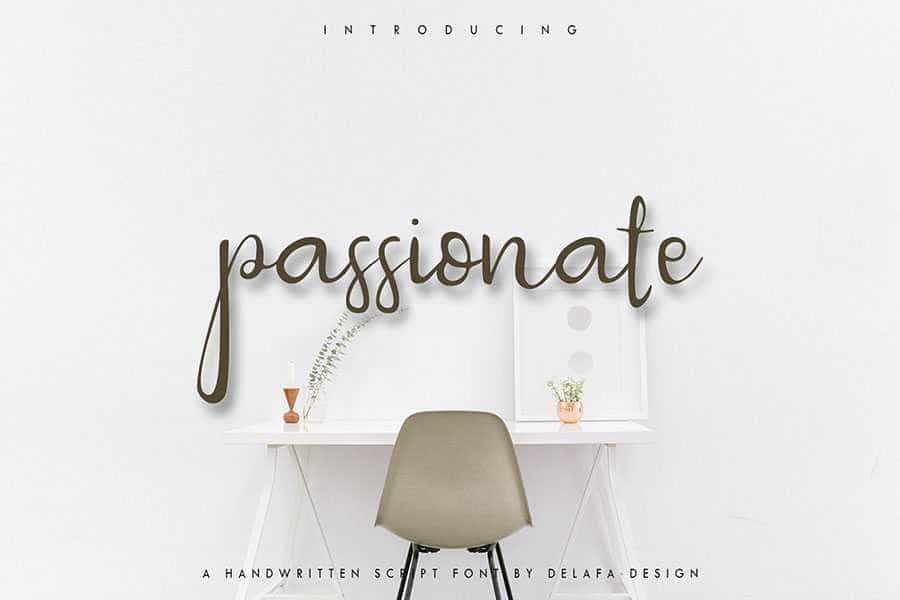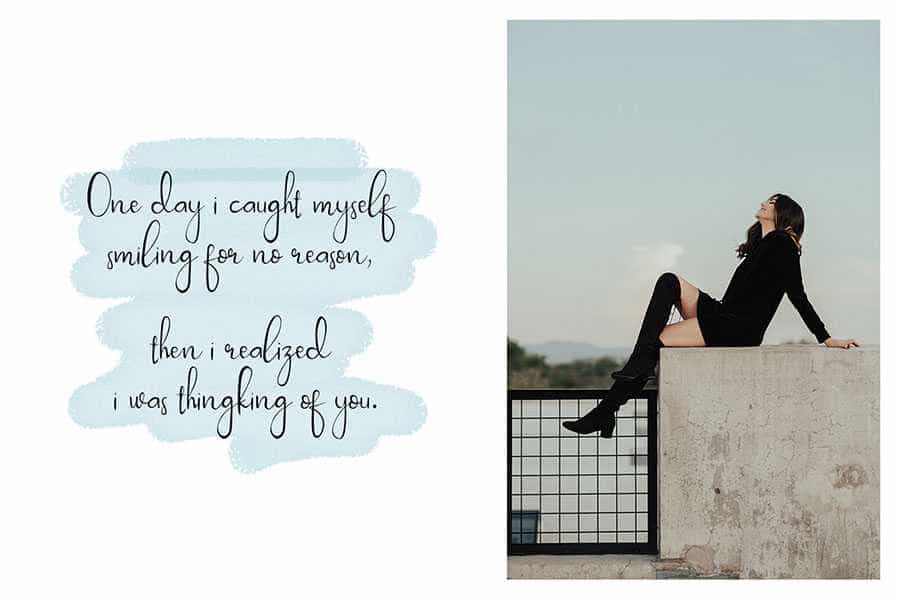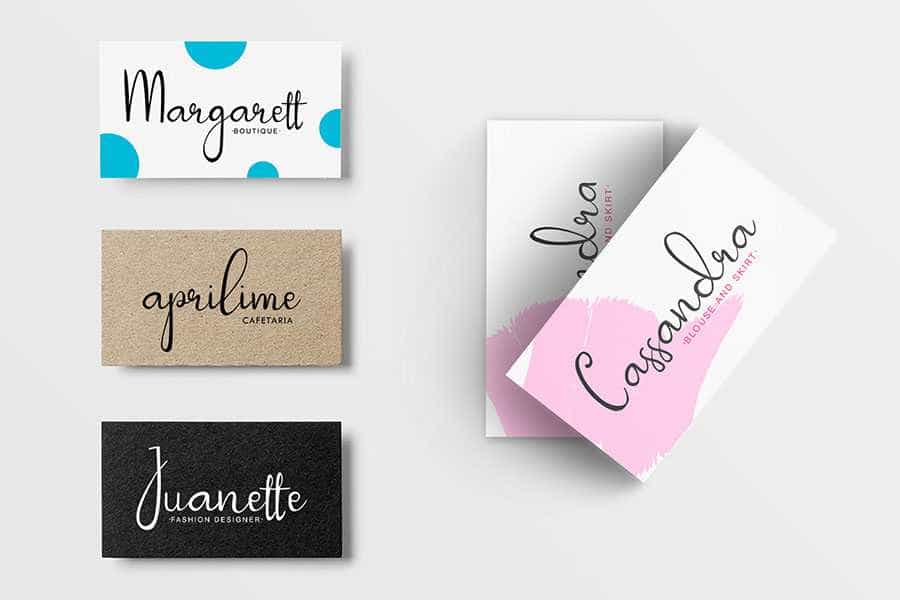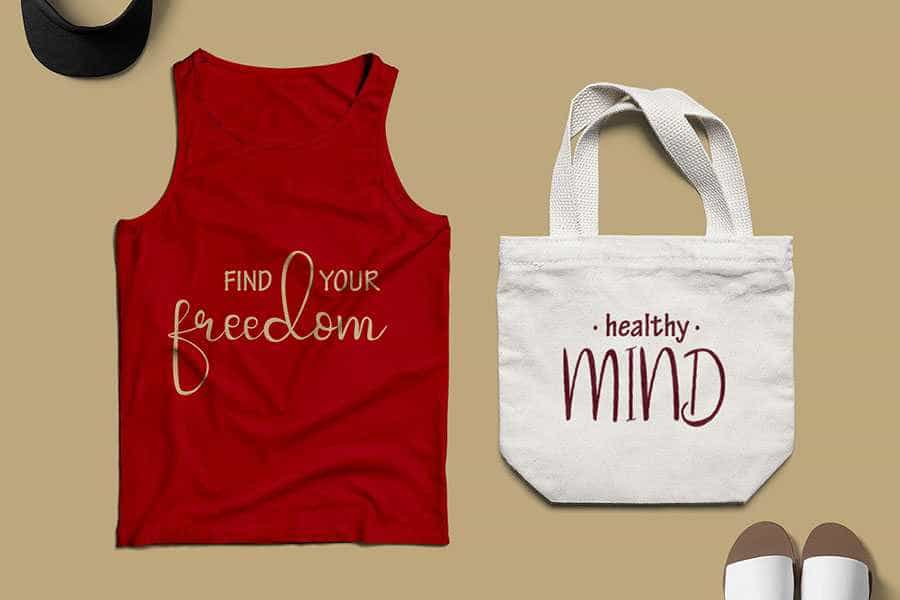
Delafa Design is pleased to introduce Passionate Font, a beautiful and classy handwritten font perfect for a wide range of applications including magazines, advertising campaigns, social media invitations or for any company that seeks stylishness and class. Passionate is suitable for use in magazines, branding and advertising campaigns, social media event invitation and any company that wishes to portray a stylish and luxurious image.